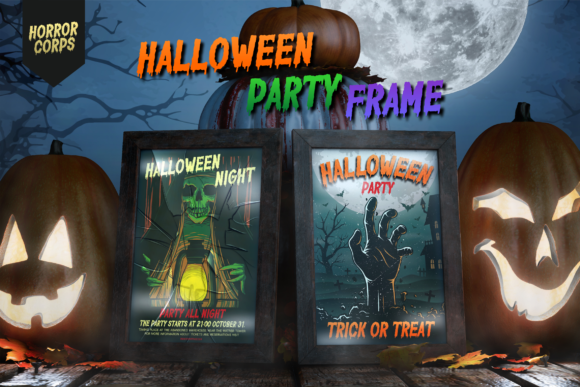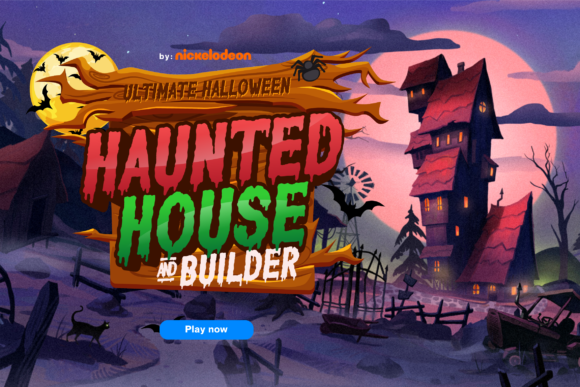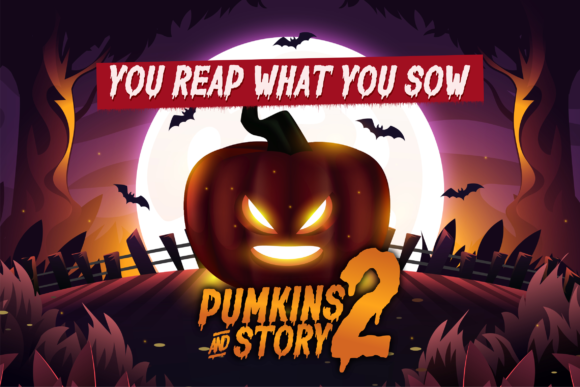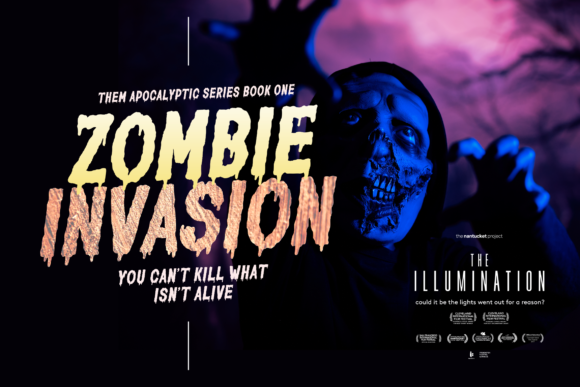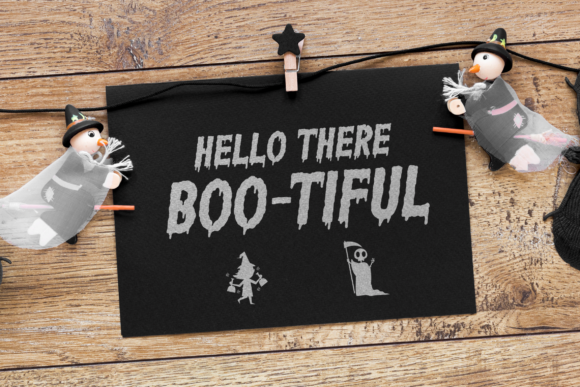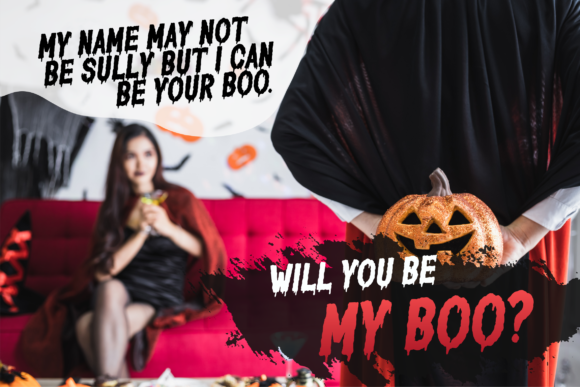
Introduction to Horror Corps Font
Horror Corps is a thick-lettered and spooky display font.
It is perfectly suitable for any Halloween-related project or crafty idea The only limit is your imagination.